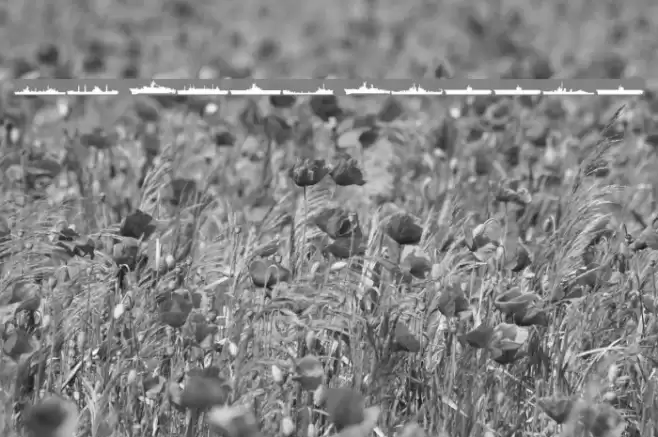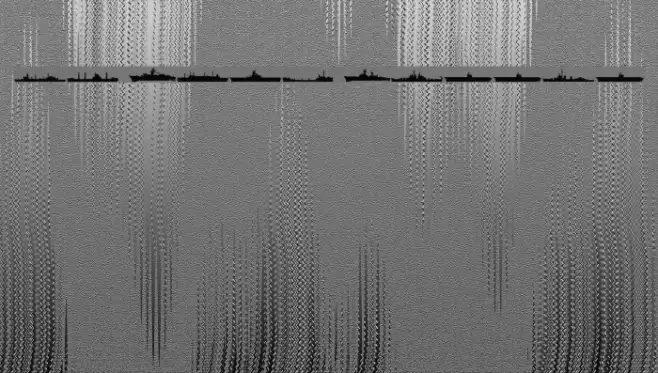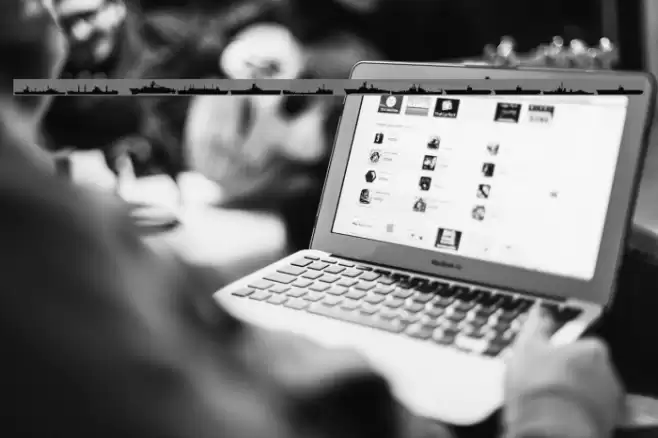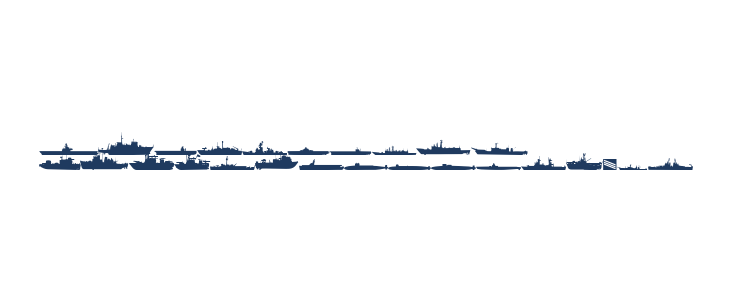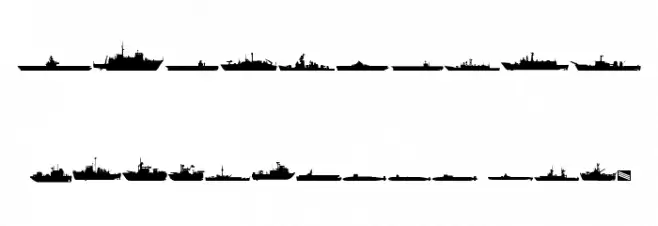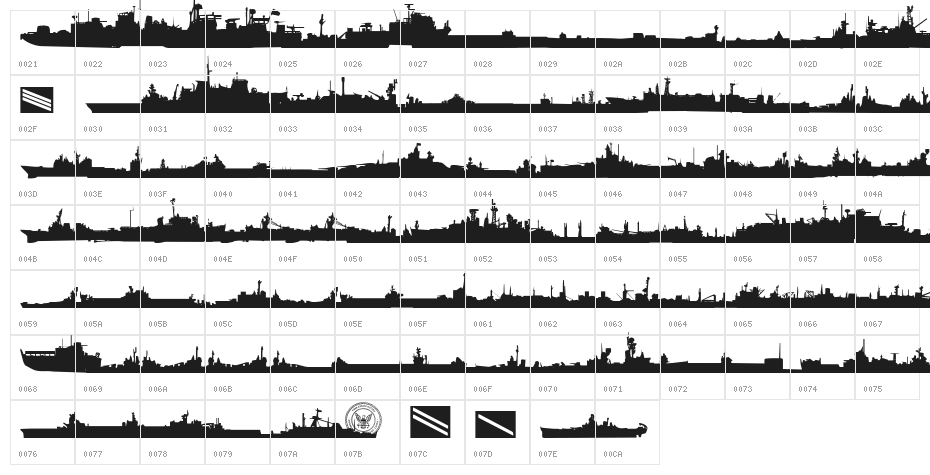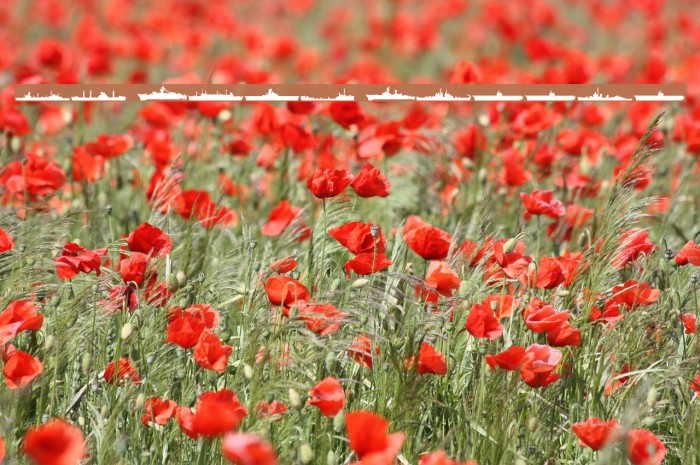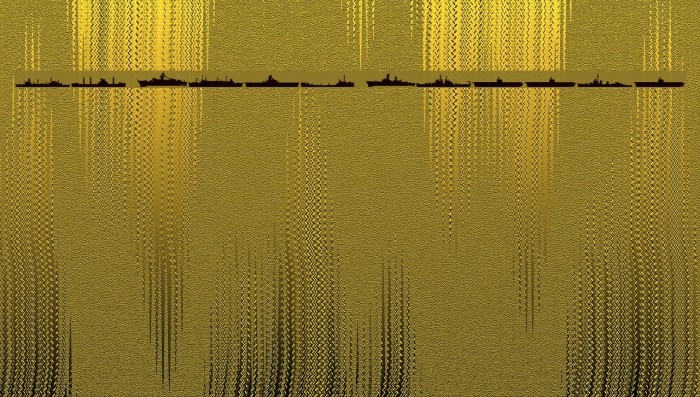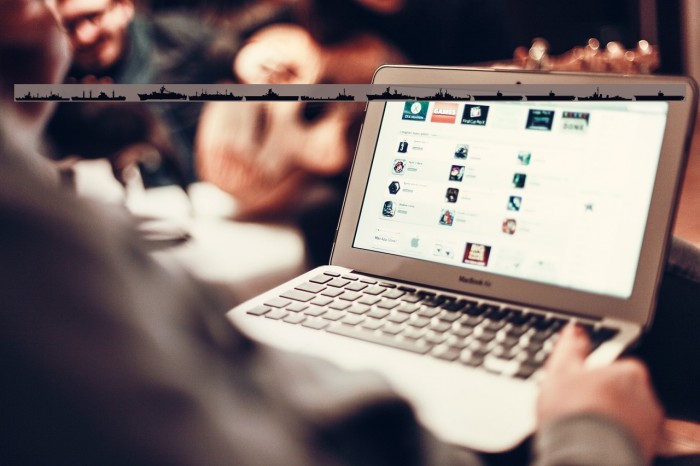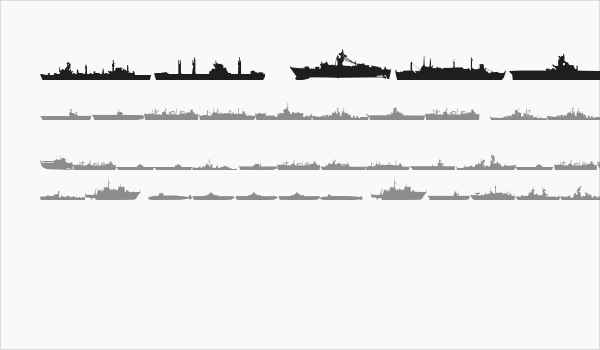
US Navy Mirror Font
US Navy Mirror Description
A decorative font composed of silhouettes of various US Navy ships arranged horizontally to form characters. Each character is represented by a unique ship profile, creating a maritime and military-themed visual style.
Decorative font using US Navy ship silhouettes as characters from Dingbats fonts.
- Proposed Projects: Military-themed designs, naval history presentations, maritime event posters, themed invitations, and decorative headings.
- Width: Expanded
- Overall Style: Thematic, Military, Nautical
- Use Case: Headlines, Logos, Themed Titles